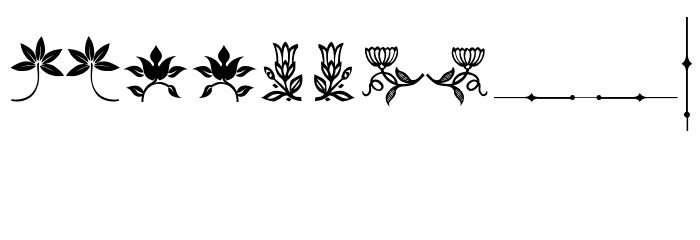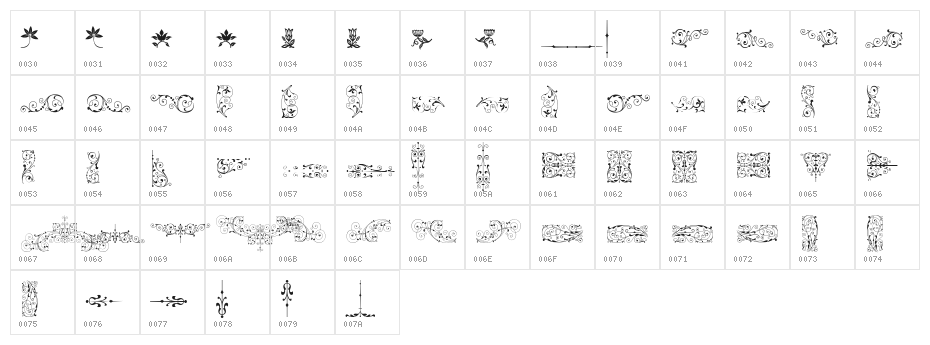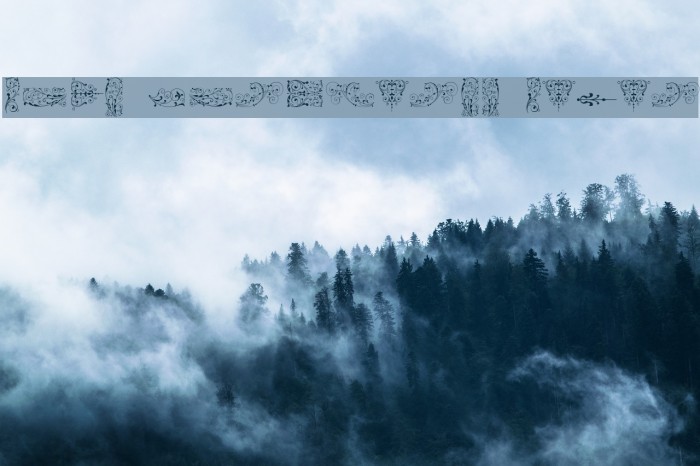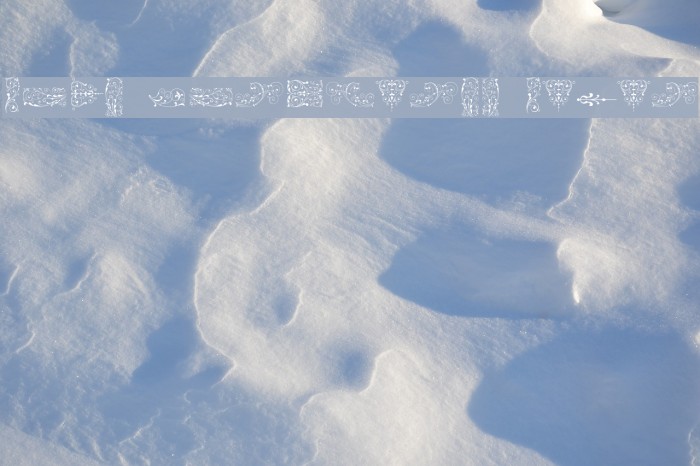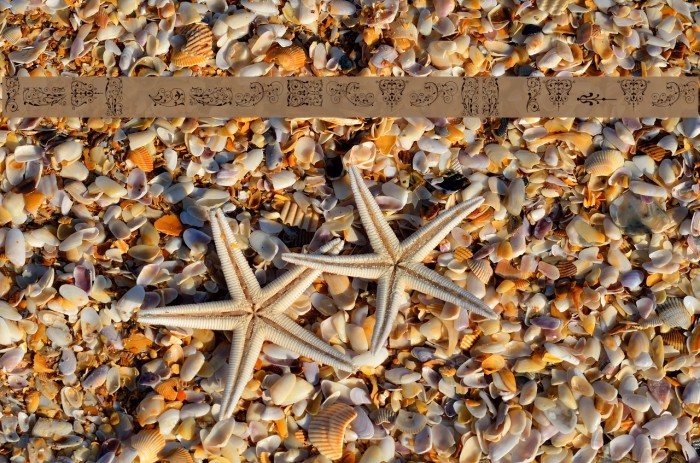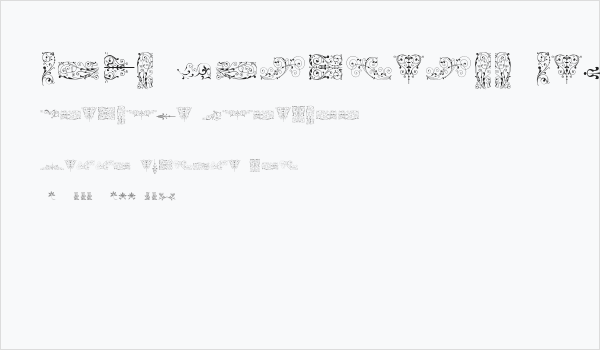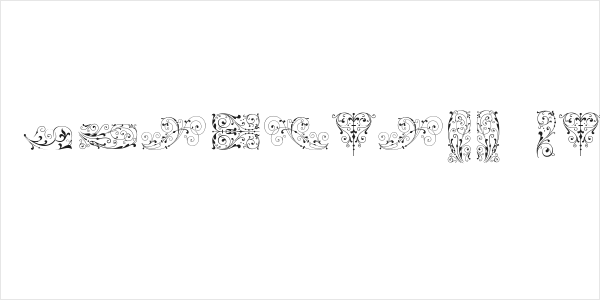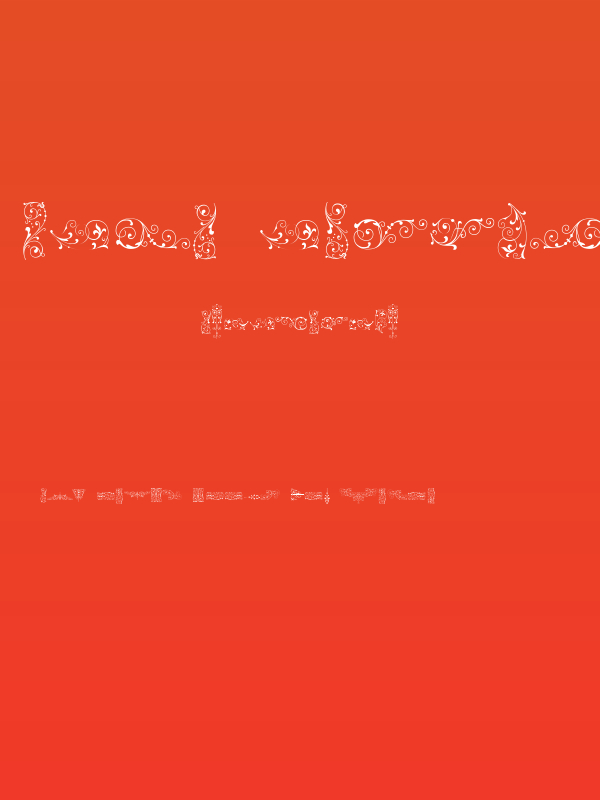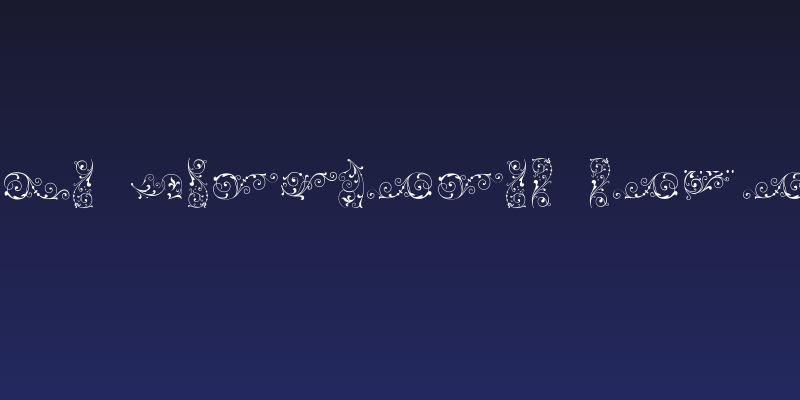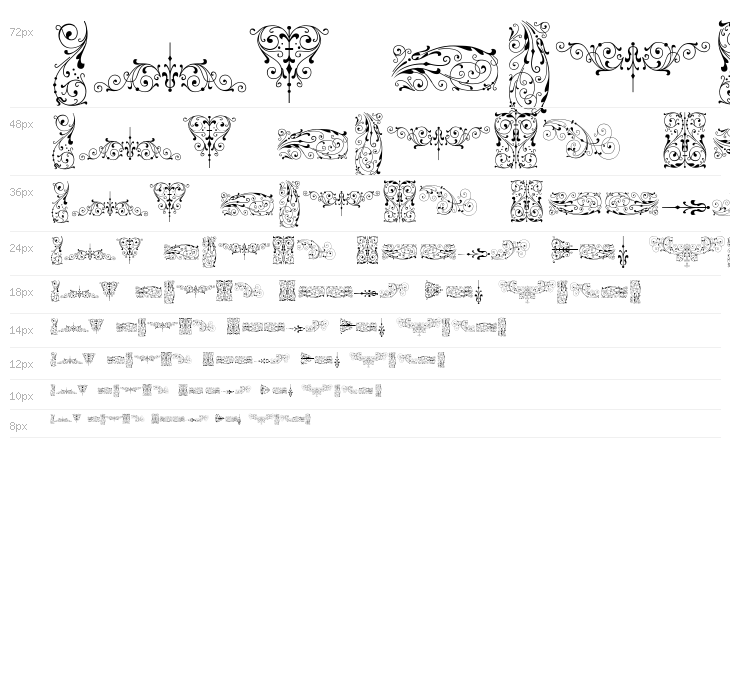
Soft Ornaments Seven Font
Soft Ornaments Seven Description
This collection of ornate decorative elements features intricate floral and scrollwork designs, perfect for adding a touch of elegance and sophistication to any project. The elements are highly detailed, with a classic and timeless appeal that evokes a sense of luxury and refinement. These ornaments can be used to embellish invitations, certificates, or any design that requires a decorative touch. The variety of shapes and styles within the set allows for versatile application, whether used as borders, dividers, or standalone decorative pieces.
| Use Case | Decorative elements, Borders, Invitations |
| Proposed Projects | Ideal for wedding invitations, certificates, luxury branding, and decorative borders. |